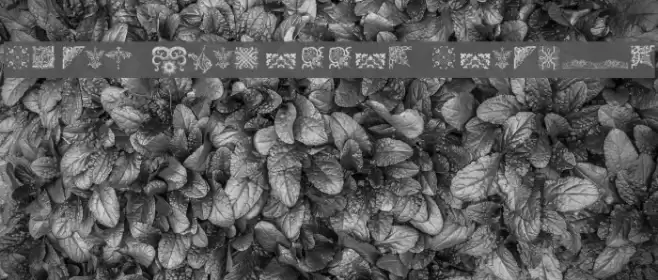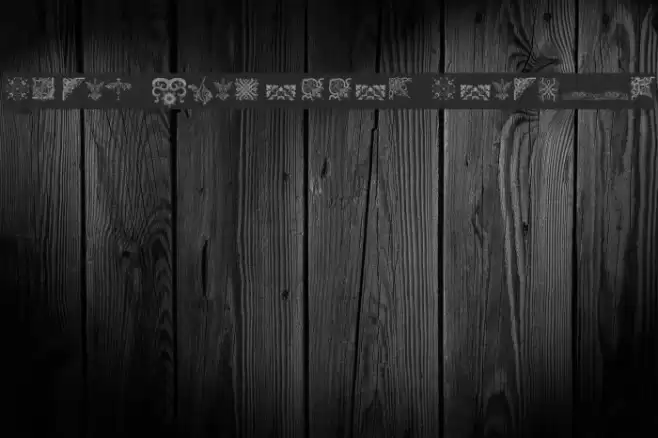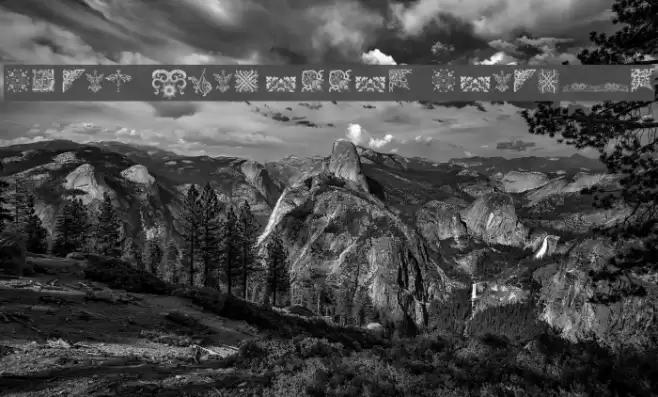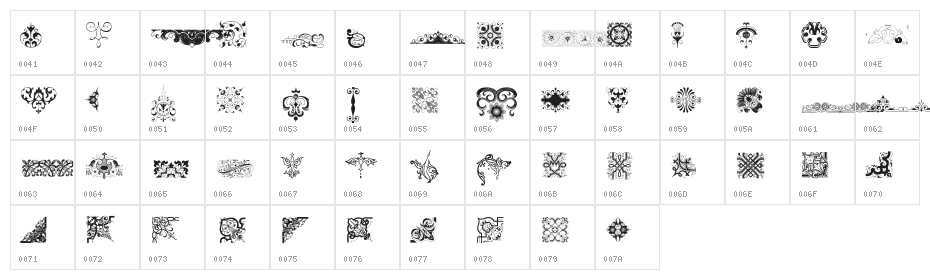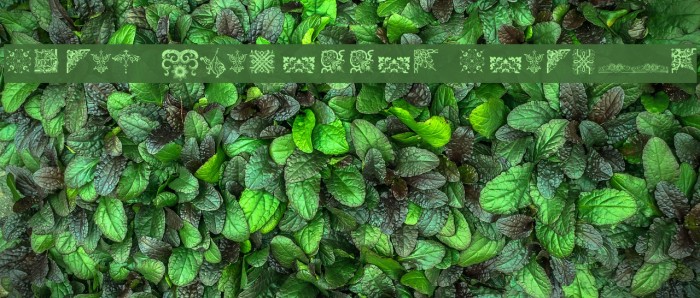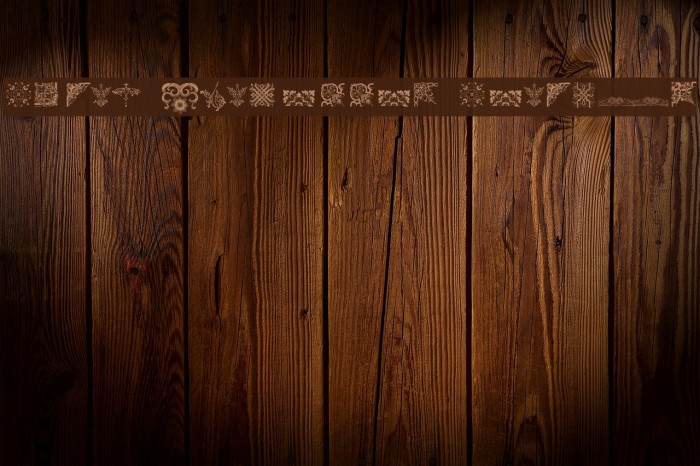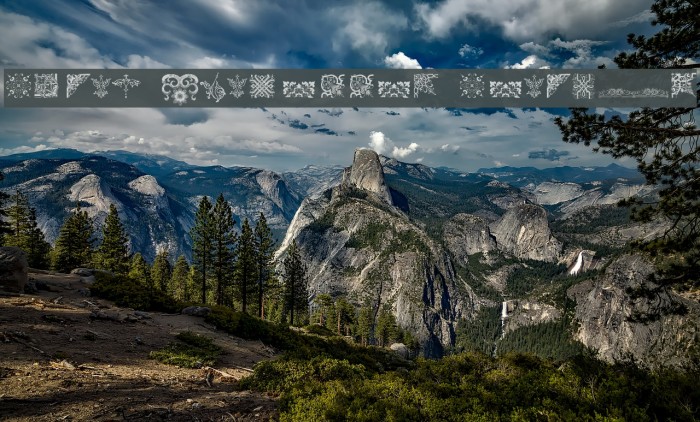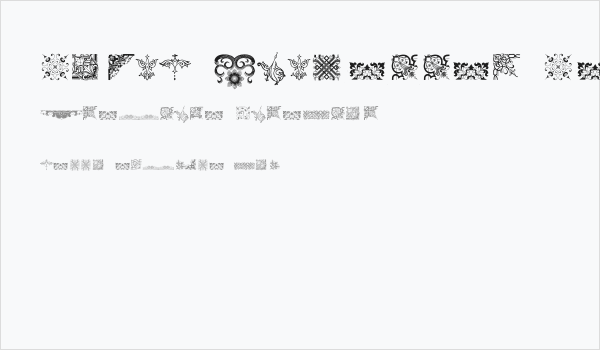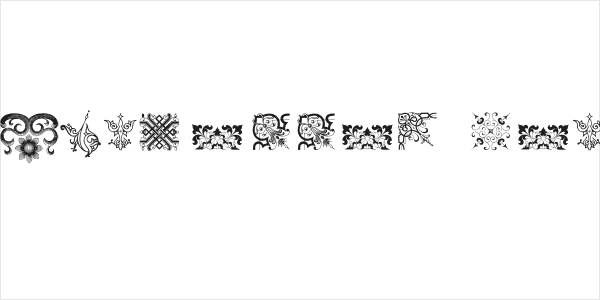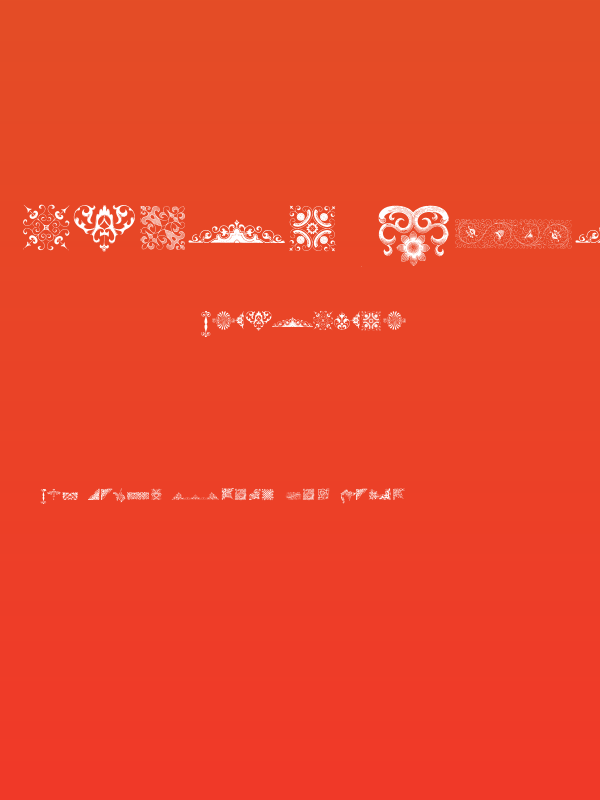
Rough Vignettes Regular Font
Rough Vignettes Regular Description
A decorative collection of ornate vignette and flourish glyphs, featuring intricate, vintage-inspired designs with high detail and contrast. The elements include borders, corners, and ornamental motifs, suitable for embellishing print or digital layouts.
Highly detailed, vintage ornamental vignette glyphs from Dingbats fonts.
- Proposed Projects: Wedding invitations, certificates, book covers, decorative borders, vintage posters, branding for luxury products.
- Overall Style: Vintage, Ornamental, Decorative
- Use Case: Borders, embellishments, decorative accents, invitations, certificates.